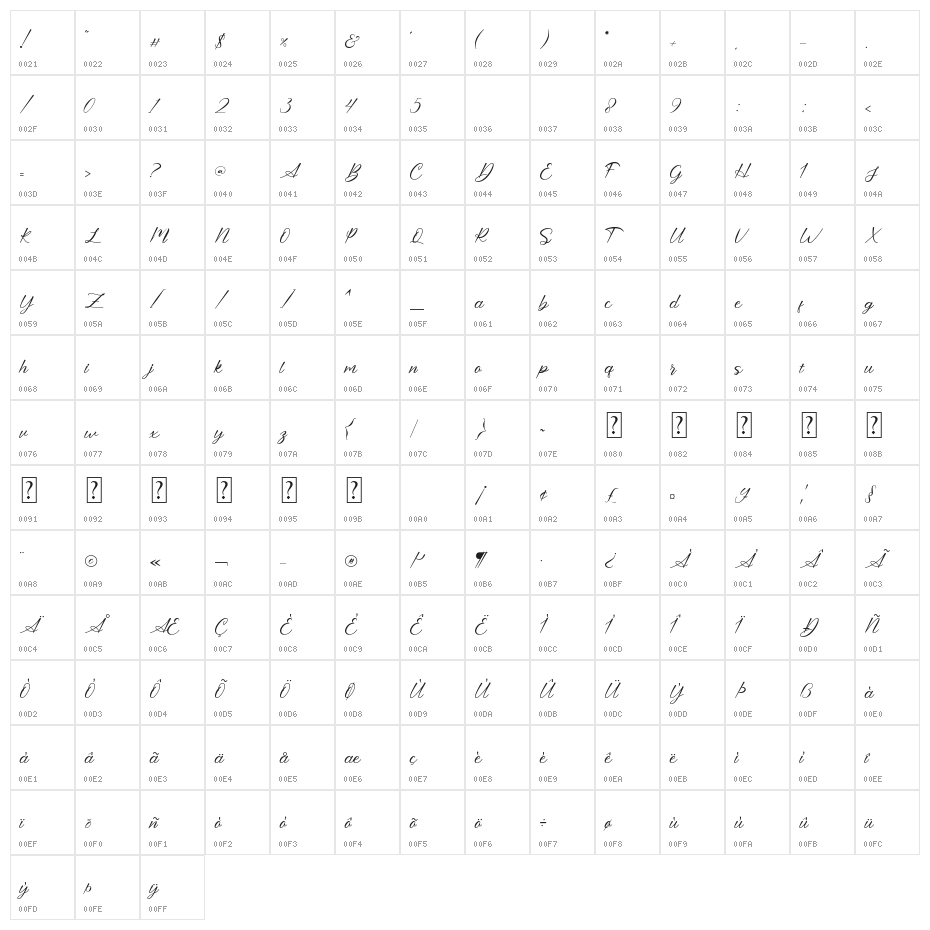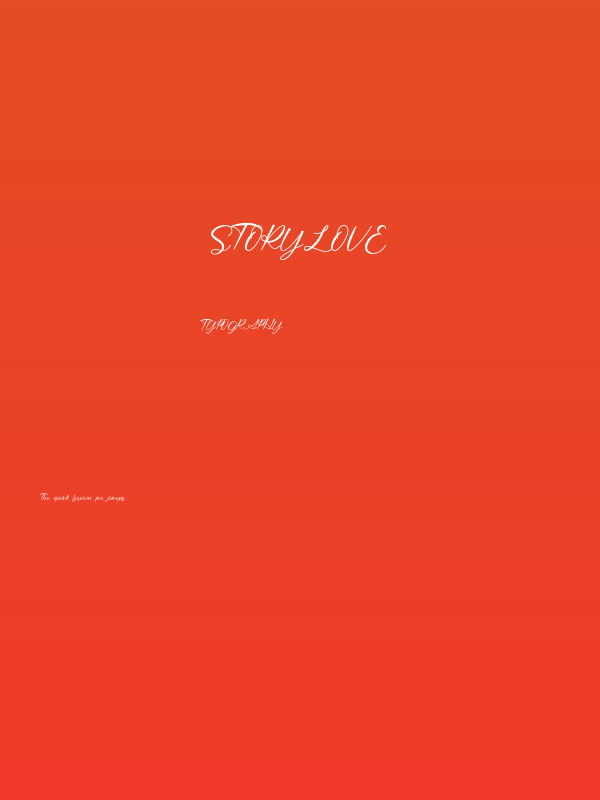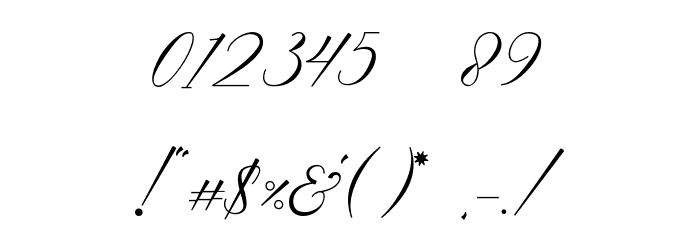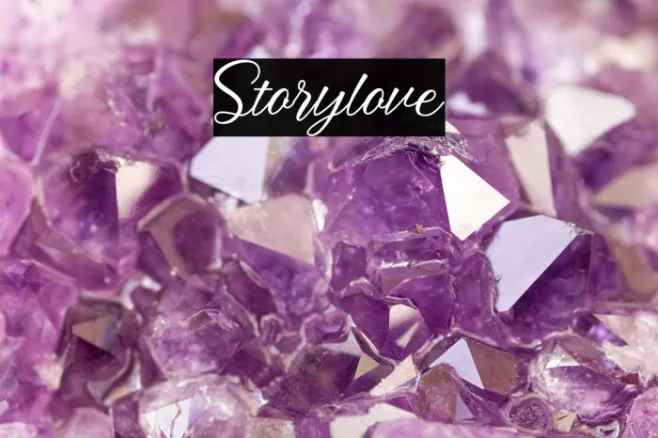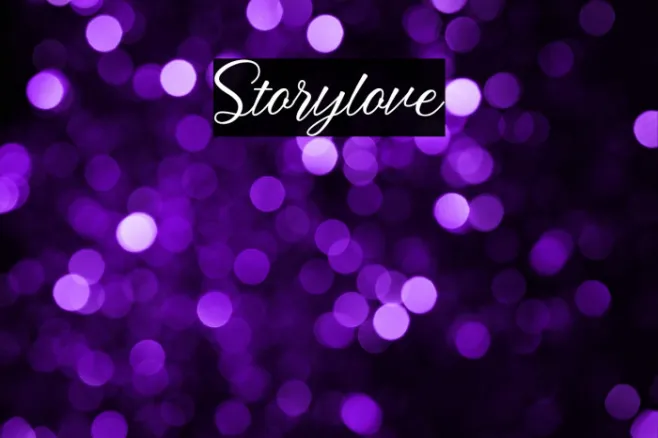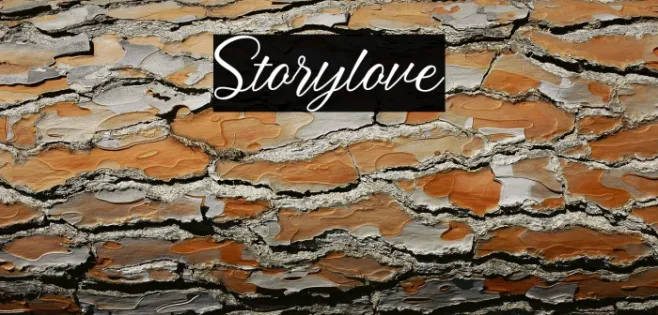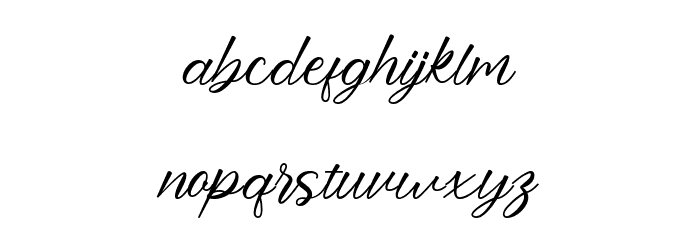
Storylove Font
Storylove Description
This elegant script font features fluid, cursive strokes that convey a sense of sophistication and grace. The uppercase letters are characterized by sweeping lines and delicate loops, while the lowercase letters maintain a consistent flow with subtle variations in stroke width. The numerals and special characters are designed to complement the overall style, maintaining the same graceful curves and elegant appearance. This font is perfect for projects that require a touch of elegance and refinement, such as wedding invitations, branding, and high-end product packaging.
| Use Case | Headlines, Invitations, Branding |
| Proposed Projects | Ideal for wedding invitations, luxury branding, and elegant product packaging. |